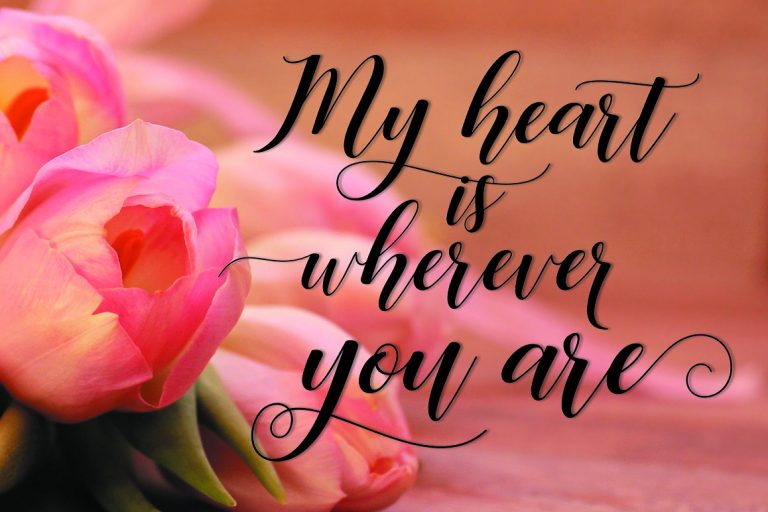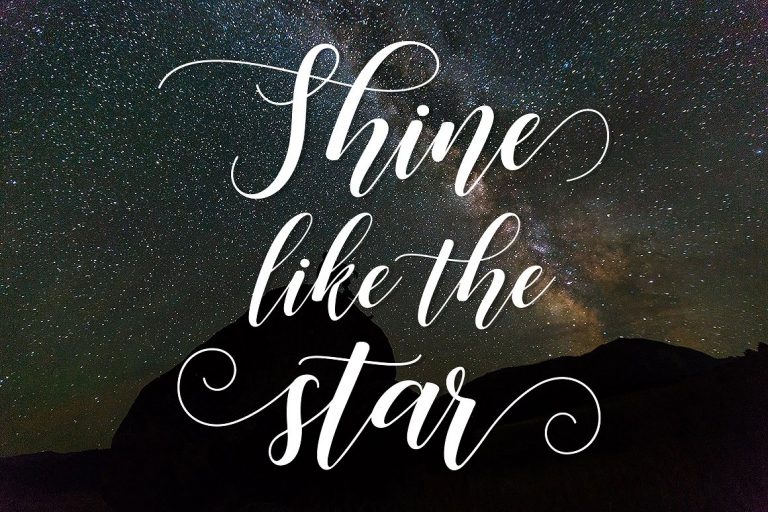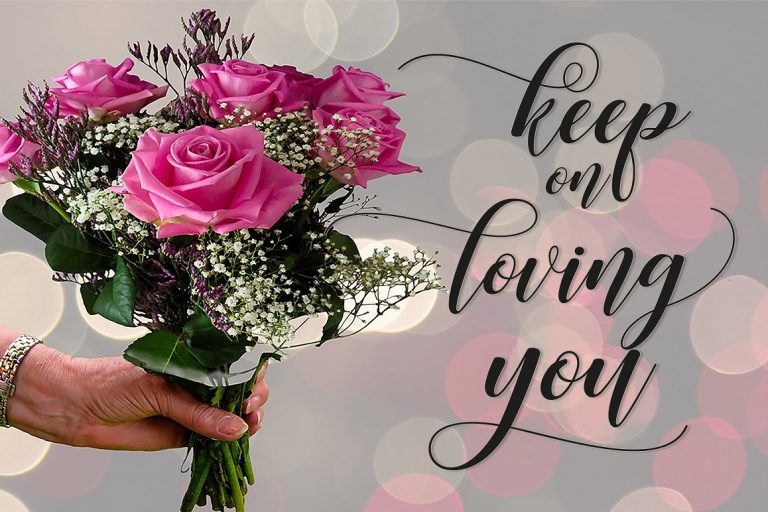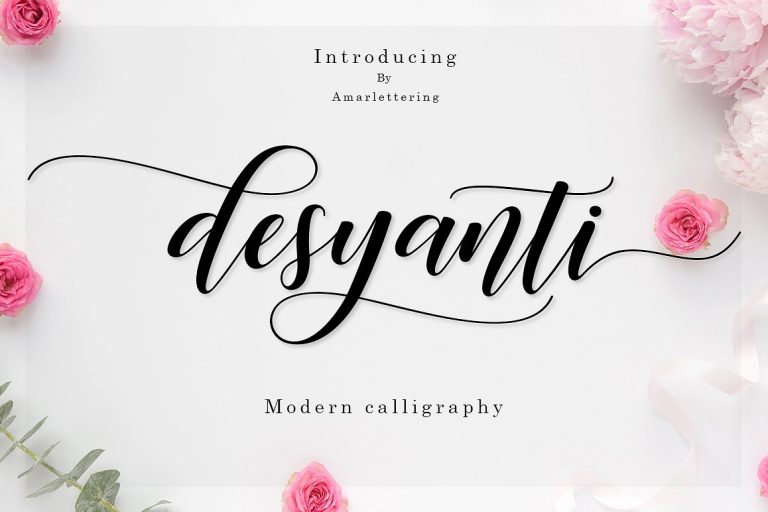
Desyanti Script Font
Hello Everybody Font Lovers! I am happy to introduce you to a modern calligraphy font. Introducing Desyanti Font! Desyanti designed by Amarlettering. Desyanti a new fresh & modern script with a handmade calligraphy style, decorative characters and a dancing baseline! So beautiful on invitation like greeting cards, branding materials, business cards, quotes, posters, and more!!